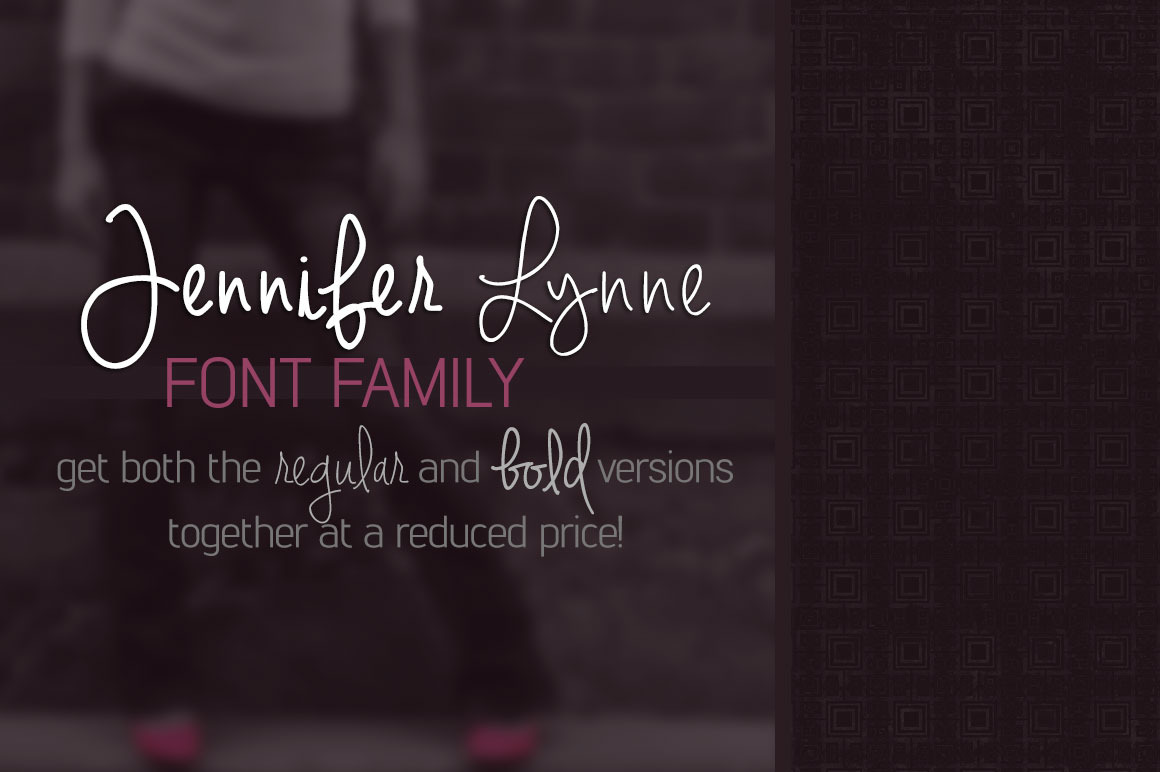
Jennifer Lynne Font Family
Jennifer Lynne is a girlish handwritten font great for logos or signatures. Now you can get the regular and bold versions together at a reduced price!